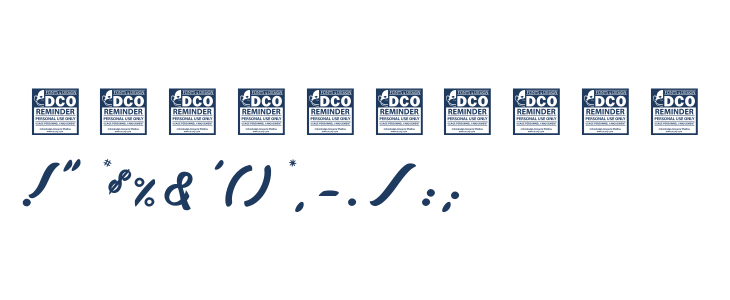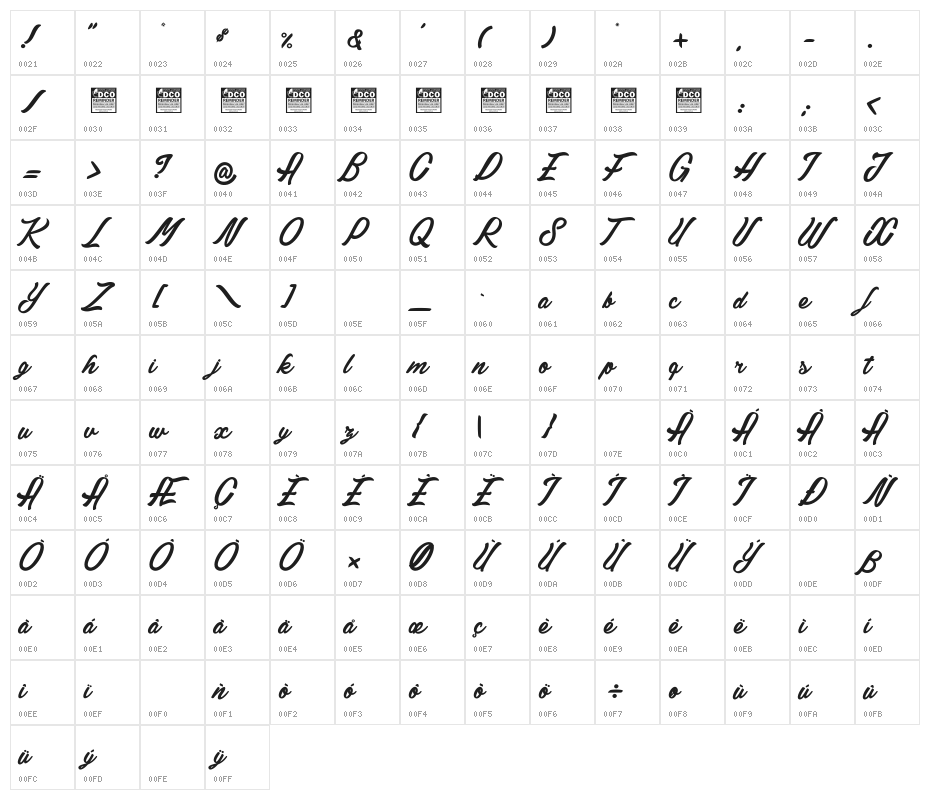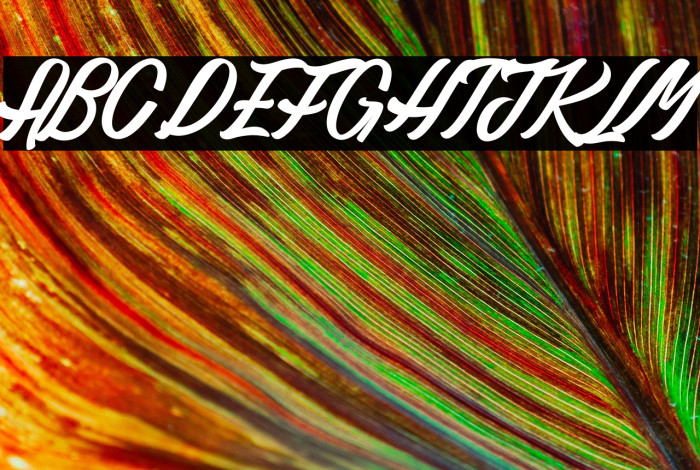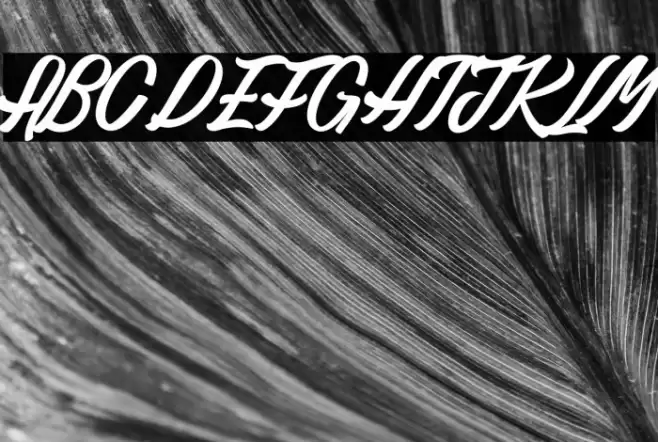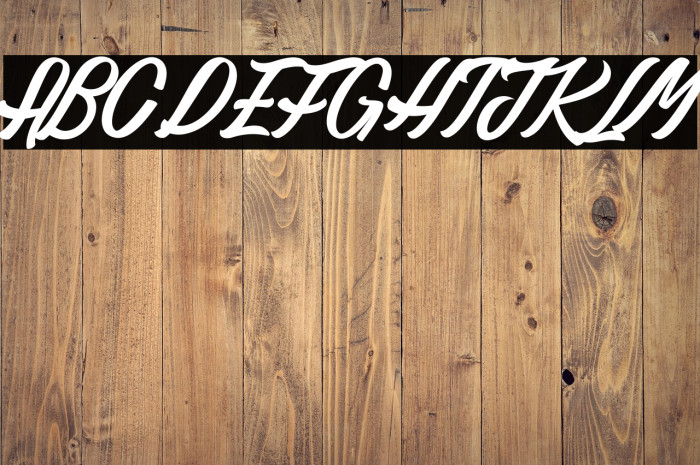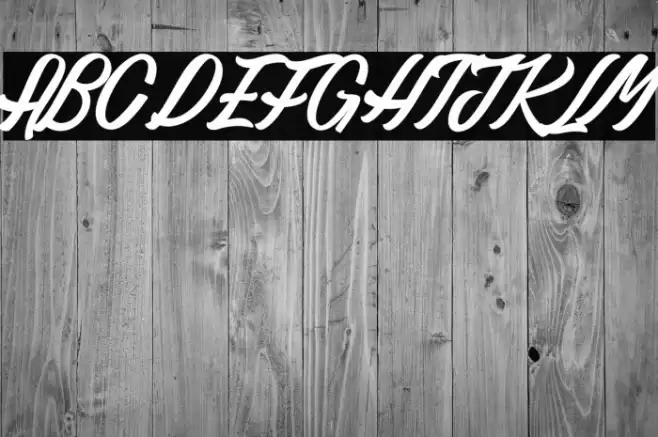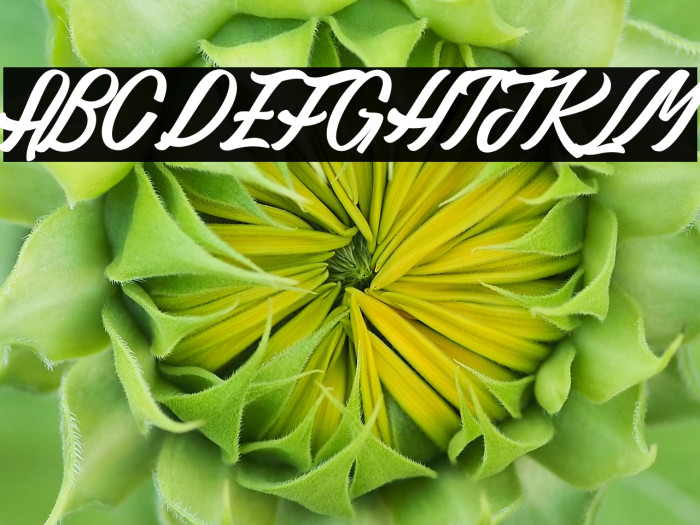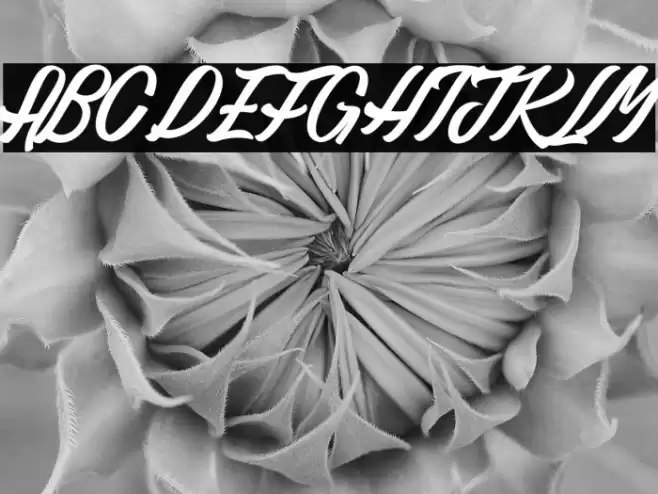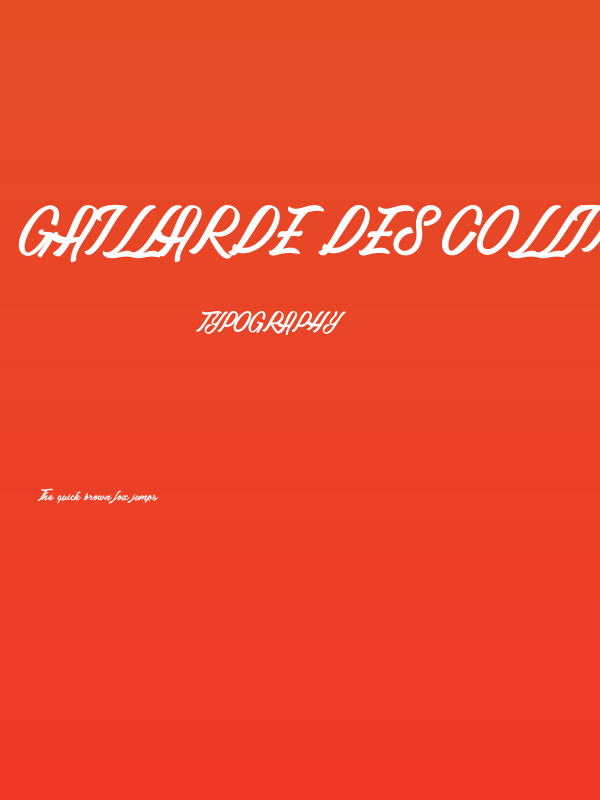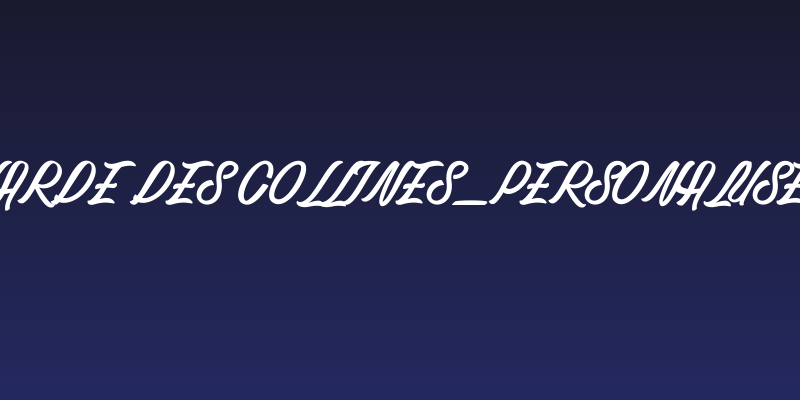
Gaillarde des Collines_PersonalUseOnly Font
Gaillarde des Collines_PersonalUseOnly Description
This font features a flowing, cursive style with smooth, connected strokes that give it an elegant and sophisticated appearance. The uppercase letters are bold and slightly slanted, while the lowercase letters maintain a consistent flow with gentle curves. The numbers and special characters are designed to complement the overall script style, maintaining the same fluidity and grace. The font's design is reminiscent of classic calligraphy, making it suitable for projects that require a touch of elegance and tradition. Its readability is enhanced by the consistent stroke width and the harmonious balance between the characters.
| Proposed Projects | Ideal for wedding invitations, elegant branding, greeting cards, and formal event materials. |